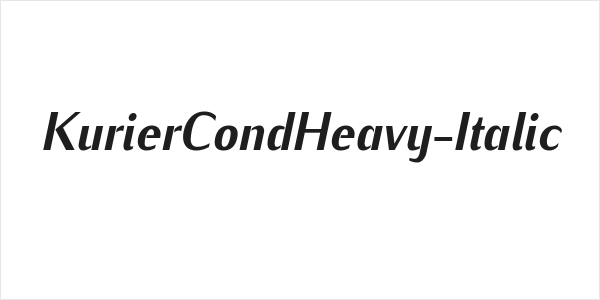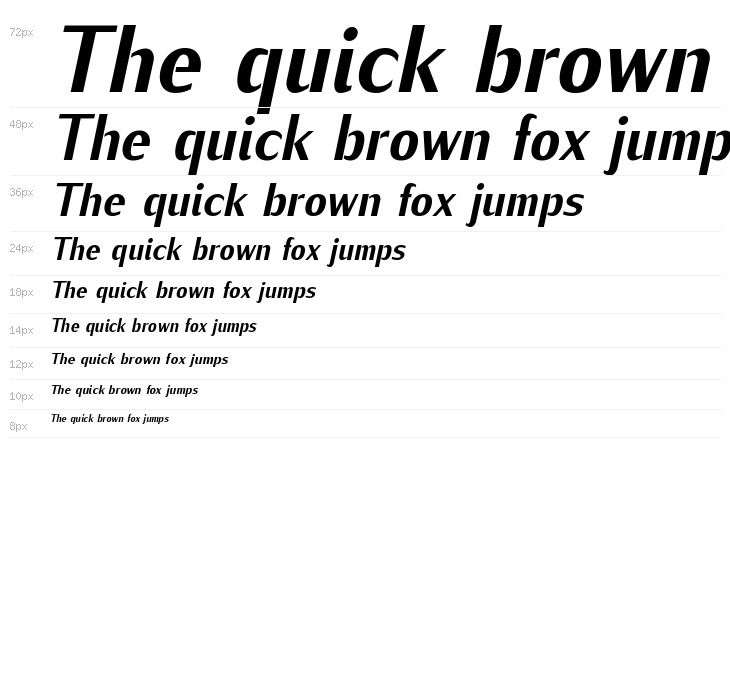
KurierCondHeavy-Italic Font
KurierCondHeavy-Italic Description
This font exhibits a bold and dynamic style with a pronounced italic slant, giving it a sense of movement and energy. The characters are well-defined with a heavy weight, making them stand out prominently. The strokes are consistent, with a medium contrast between thick and thin lines, adding to its legibility and visual impact. The overall design is modern and sleek, suitable for making a strong statement. The character spacing is normal, ensuring readability while maintaining a compact appearance. This font is versatile, capable of being used in various design contexts where emphasis and clarity are desired.